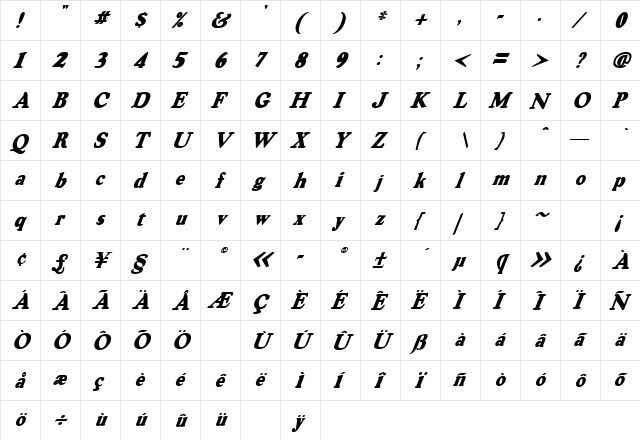
OswaldGrey Italic
Design Context for OswaldGrey Typeface
OswaldGrey takes a measured approach to typography — its balanced proportions and neutral character make it a reliable workhorse for both digital and print work. The dynamic lean of this cut emphasises speed and emphasis in any layout.
Pro Tip: Use OswaldGrey for emphasis, pull quotes, and subheadings where its slanted energy can add rhythm to the layout.